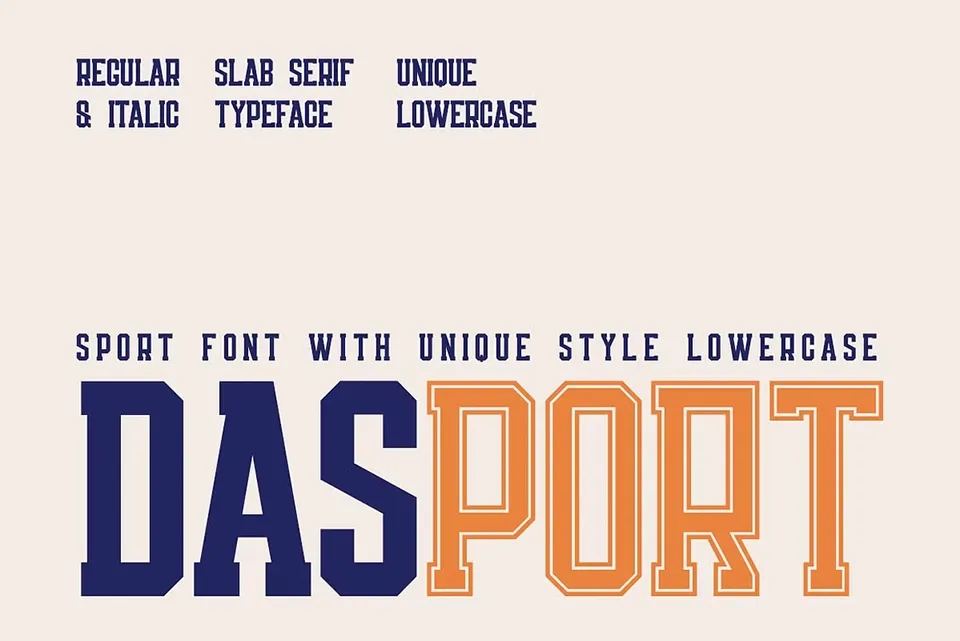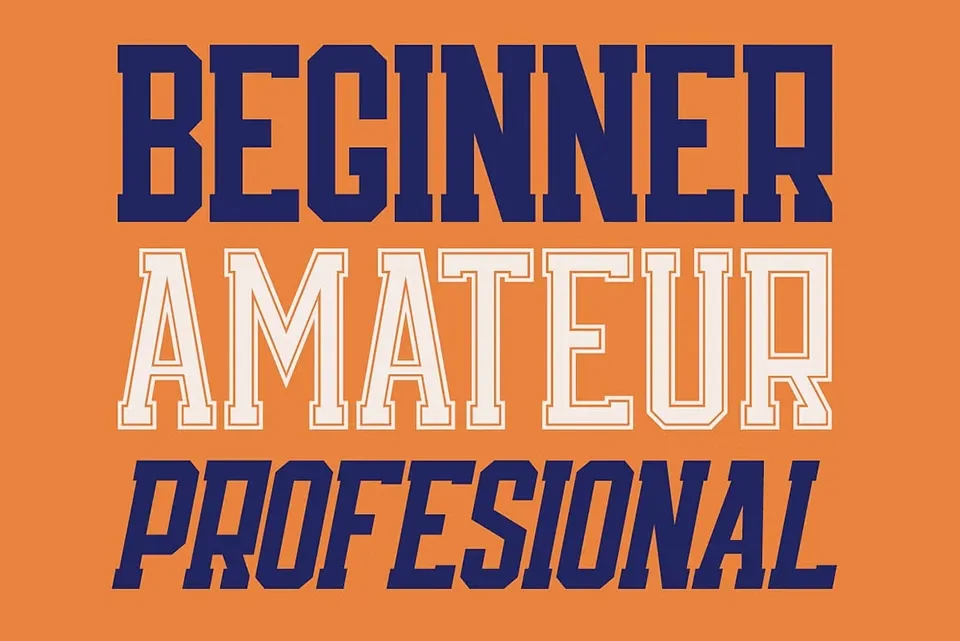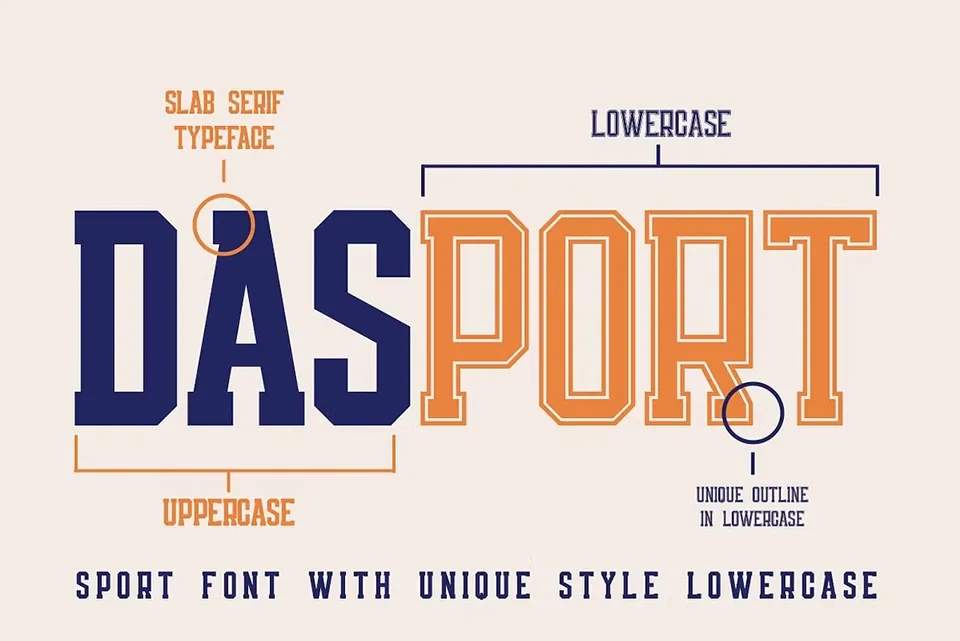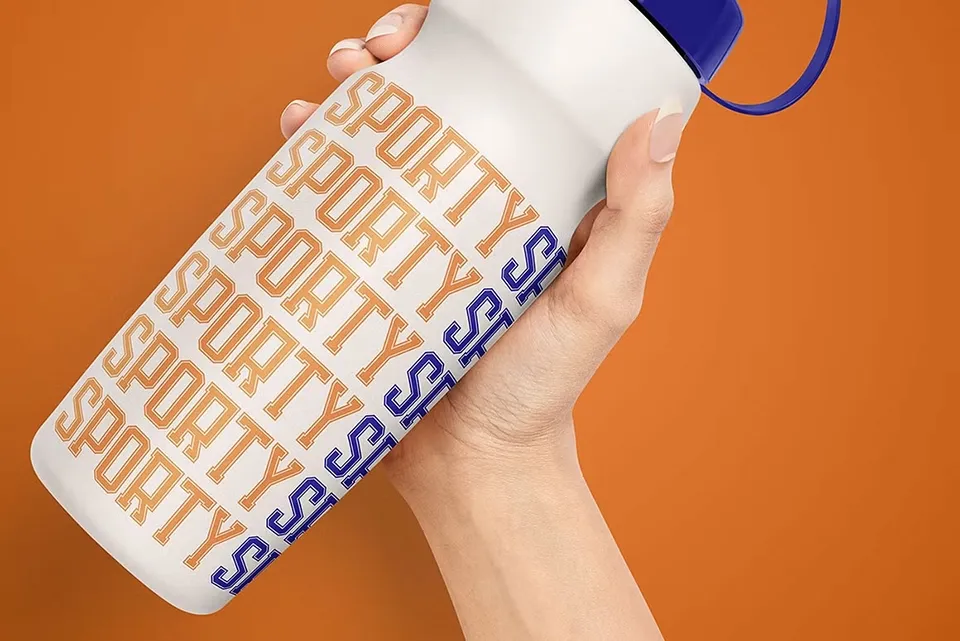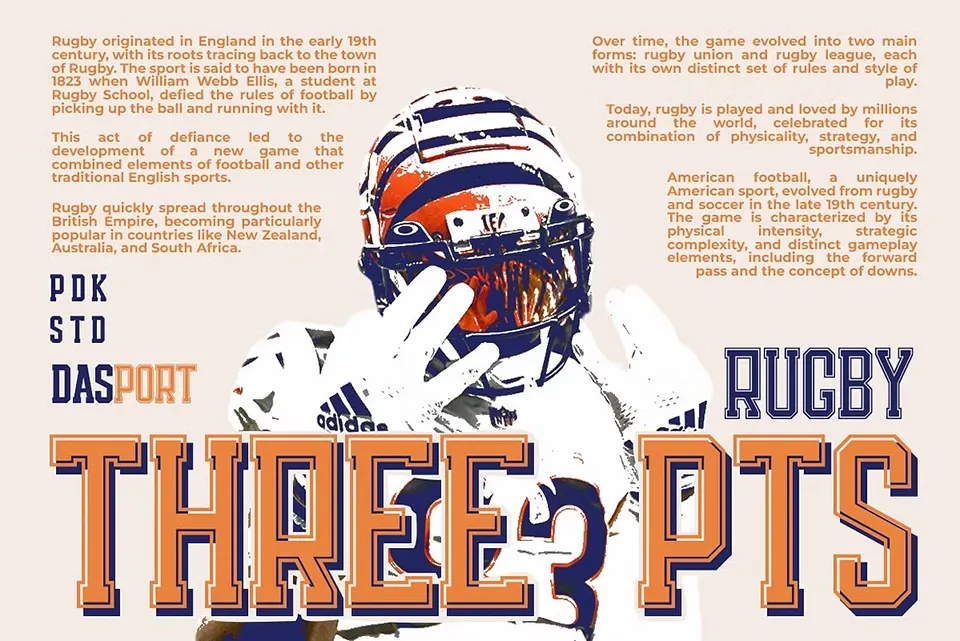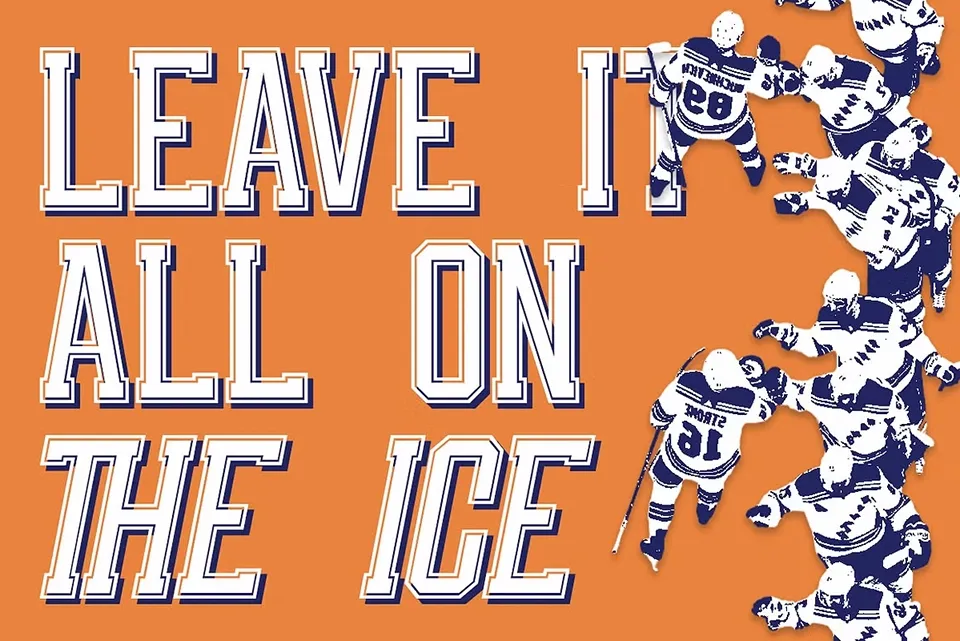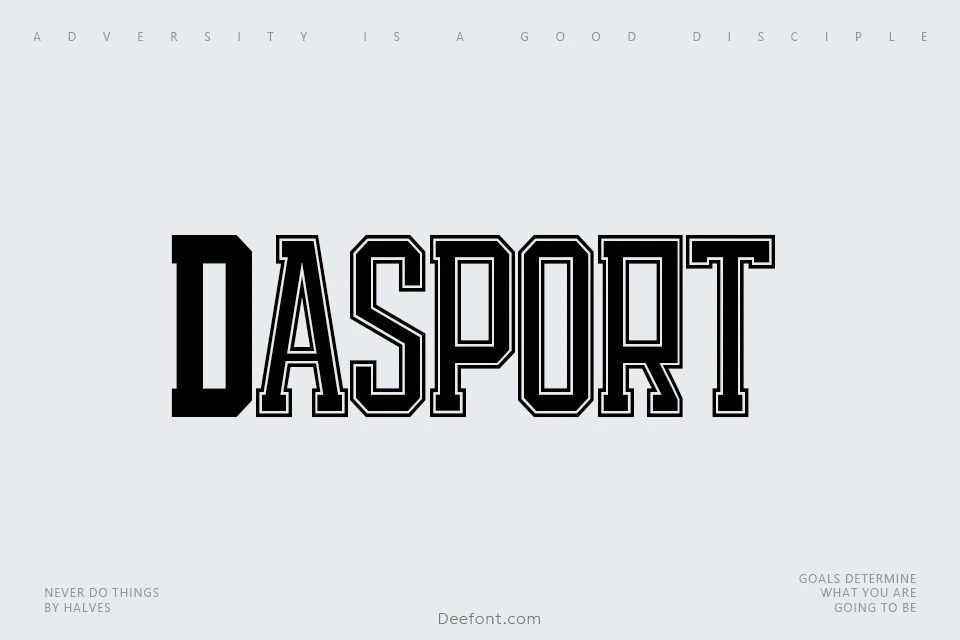
Dasport Font
Dasport Font is a bold and dynamic slab serif typeface designed specifically for sports-themed projects. Featuring both regular and italic styles, Dasport stands out with its strong, geometric letterforms and unique lowercase characters. The font’s robust structure and clean lines make it perfect for team logos, athletic apparel, posters, and event branding. Its distinctive style captures the energy and spirit of competition, ensuring your message commands attention. Dasport Font’s versatility and eye-catching appearance make it an excellent choice for any design that needs a powerful, sporty look with a modern edge.